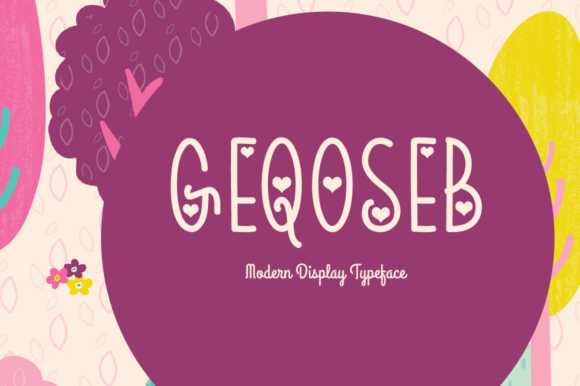
Step into a world of beauty and allure with Geqoseb Font, the enchanting display font that will ignite your designs with a romantic charm. Crafted by the ingenious minds at Shattered Notion, Geqoseb is not just a font; it's a gateway to a world of creativity and self-expression. With two captivating styles to choose from, this font duo is a versatile masterpiece that caters to diverse design needs.
Geqoseb's first style exudes a bold and assertive presence, making headlines, posters, and branding projects sing with confidence. Its strong lines and dramatic curves command attention, demanding to be noticed. The second style, however, embraces a more delicate and graceful touch, flowing effortlessly through invitations, wedding stationery, and social media posts, leaving a trail of elegance in its wake.
Unleash your creativity and delve into a realm of possibilities with Geqoseb Font. This font duo is a treasure trove of artistic expression, allowing you to craft designs that speak to the heart and stir the soul. Its versatility knows no bounds, making it the perfect companion for a myriad of projects, from captivating social media campaigns to stunning wedding invitations that leave a lasting impression.
With Geqoseb Font, you unlock a world where romance and beauty intertwine, creating designs that captivate and enchant. Embrace the power of this font duo and embark on a creative journey that will leave you breathless.